Minnesota Timberwolves Font
What Font Does Minnesota Timberwolves Use?
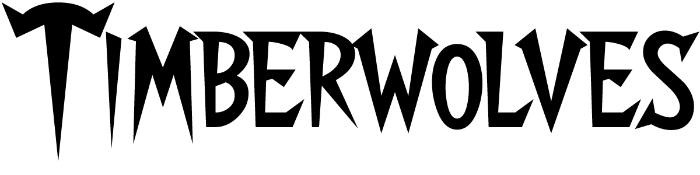
The Minnesota Timberwolves Font is Walshes, the typeface used in the team’s logo and branding elements. Designed by Larabie Fonts, Walshes is a display sans-serif font with sharp angles, strong lines, and an athletic, edgy structure. Its bold and aggressive letterforms give the Timberwolves a powerful, modern, and competitive visual identity that fits professional sports branding. Walshes is free to download, making it a popular choice for fan graphics, posters, and unofficial merchandise inspired by the team’s look.